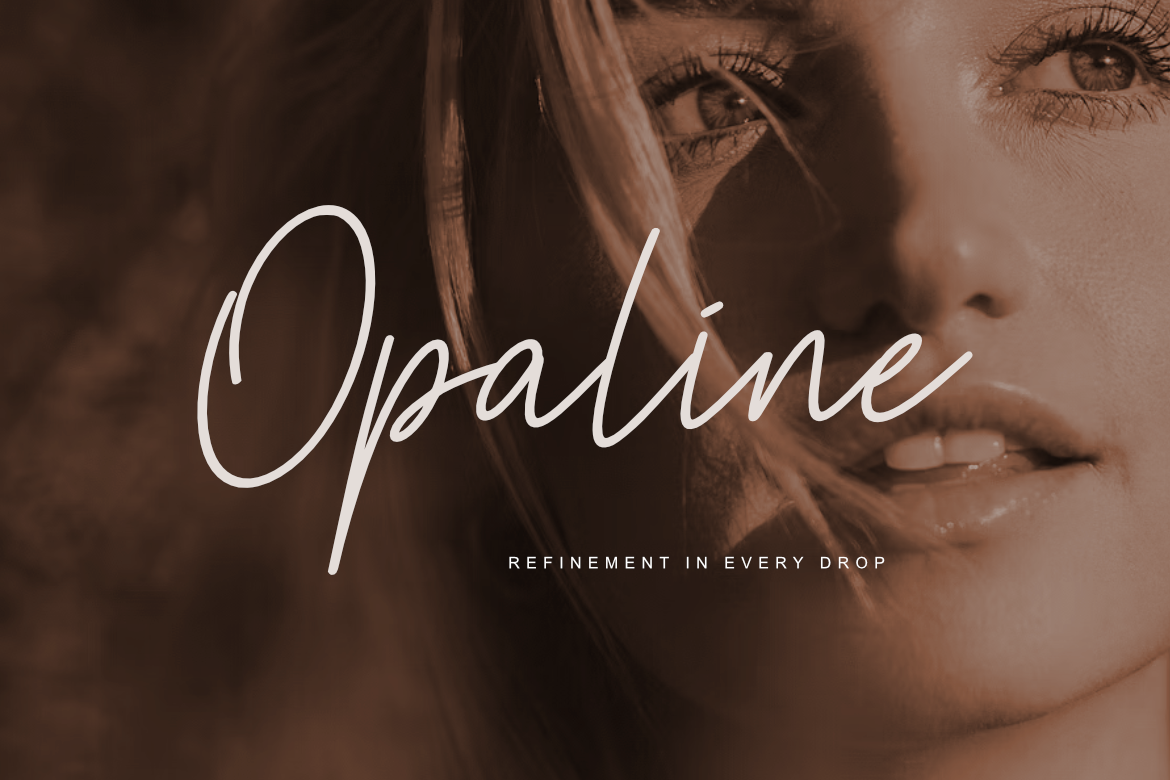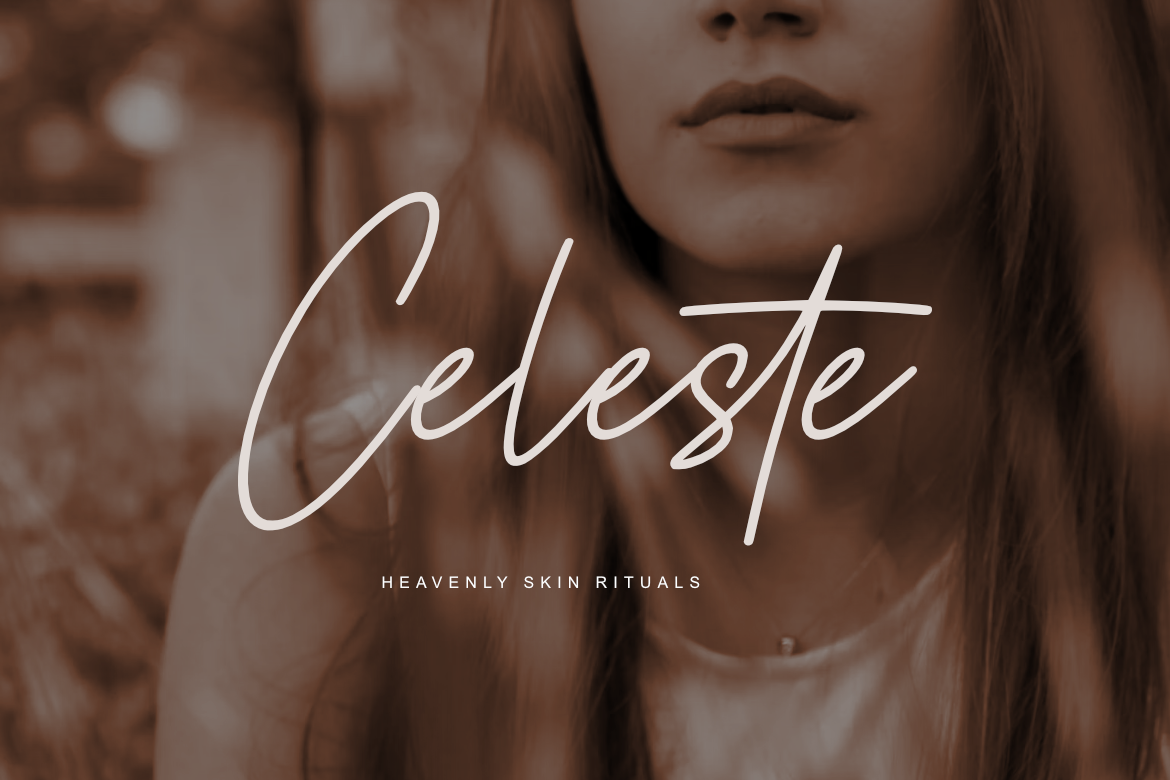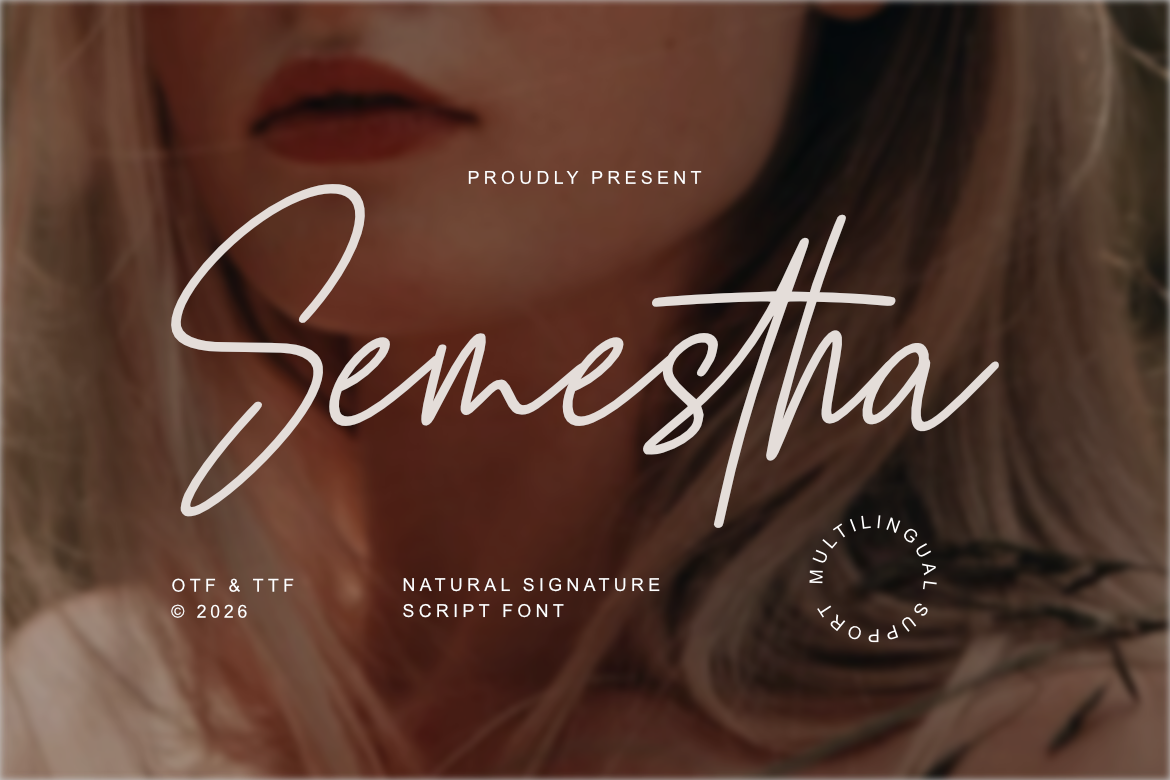
Semestha
Semestha – Natural Signature Script Font
Semestha is a sophisticated and elegant natural signature script font, thoughtfully designed to capture the essence of organic charm and contemporary storytelling. With its fluid, expressive strokes and smooth, authentic connections, Semestha offers a professional aesthetic that brings a touch of refined intimacy to any creative project.
This font is the ideal choice for designers looking to add a professional yet high-impact personal touch to their work. Whether you are crafting a striking lifestyle brand identity, a sleek fashion logo, or elegant wedding invitations, Semestha provides a seamless blend of modern calligraphic edge and timeless luxury.
Main Features:
- Natural Signature Design: Optimized for a clean, organic, and highly professional handwritten look.
- Multilingual Support: Fully loaded and ready for diverse global design projects.
- Fluid Expressive Presence: Meticulously crafted for seamless flow, beautiful swashes, and superior legibility.
- Professional Aesthetic: High-end finish tailored for modern fashion, beauty, photography, and premium lifestyle branding.
Best Used For: High-end luxury branding, photography watermarks, fashion logos, premium cosmetics packaging, wedding stationery, elegant corporate signatures, lifestyle editorial design, and sophisticated web headers.